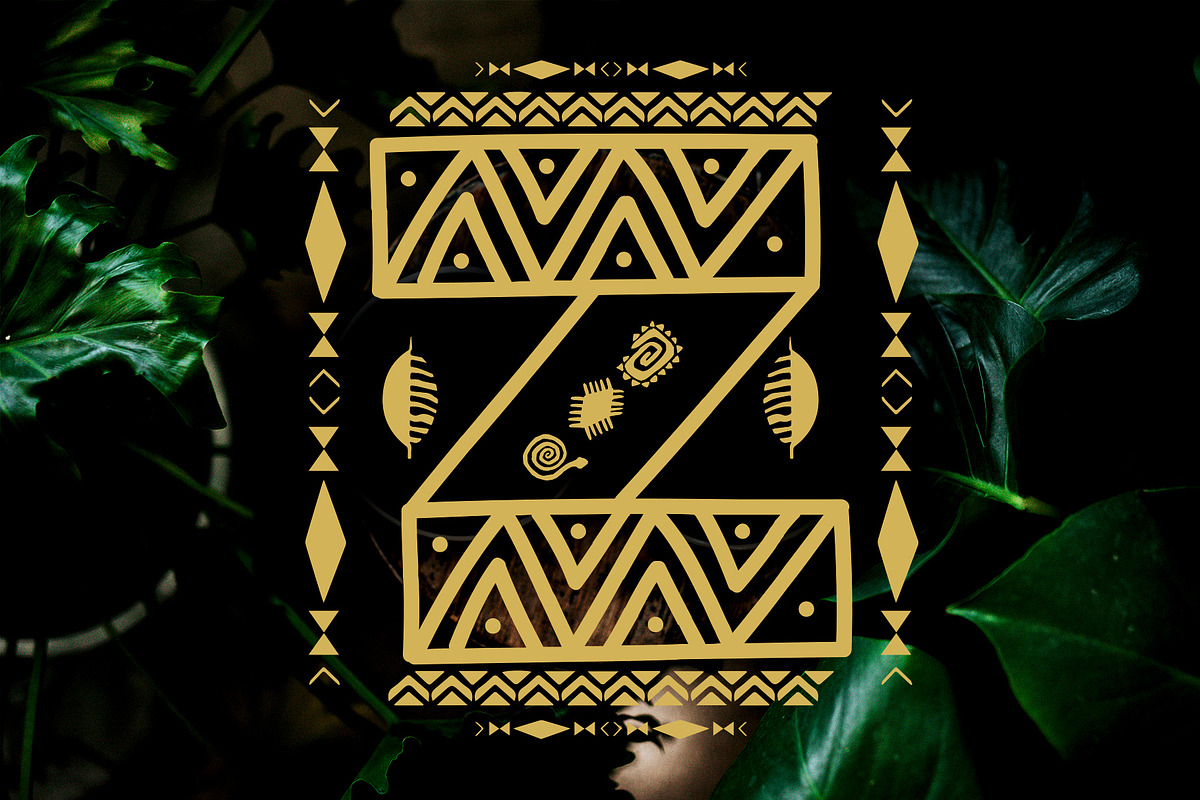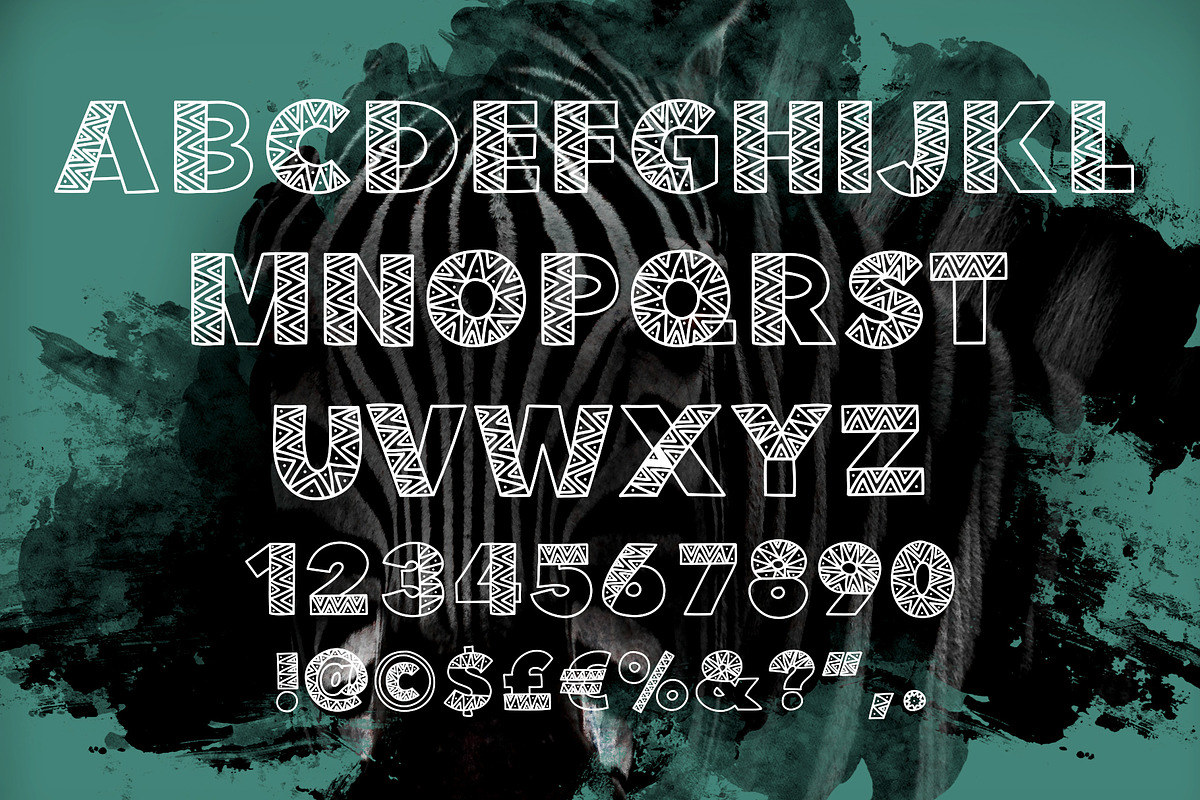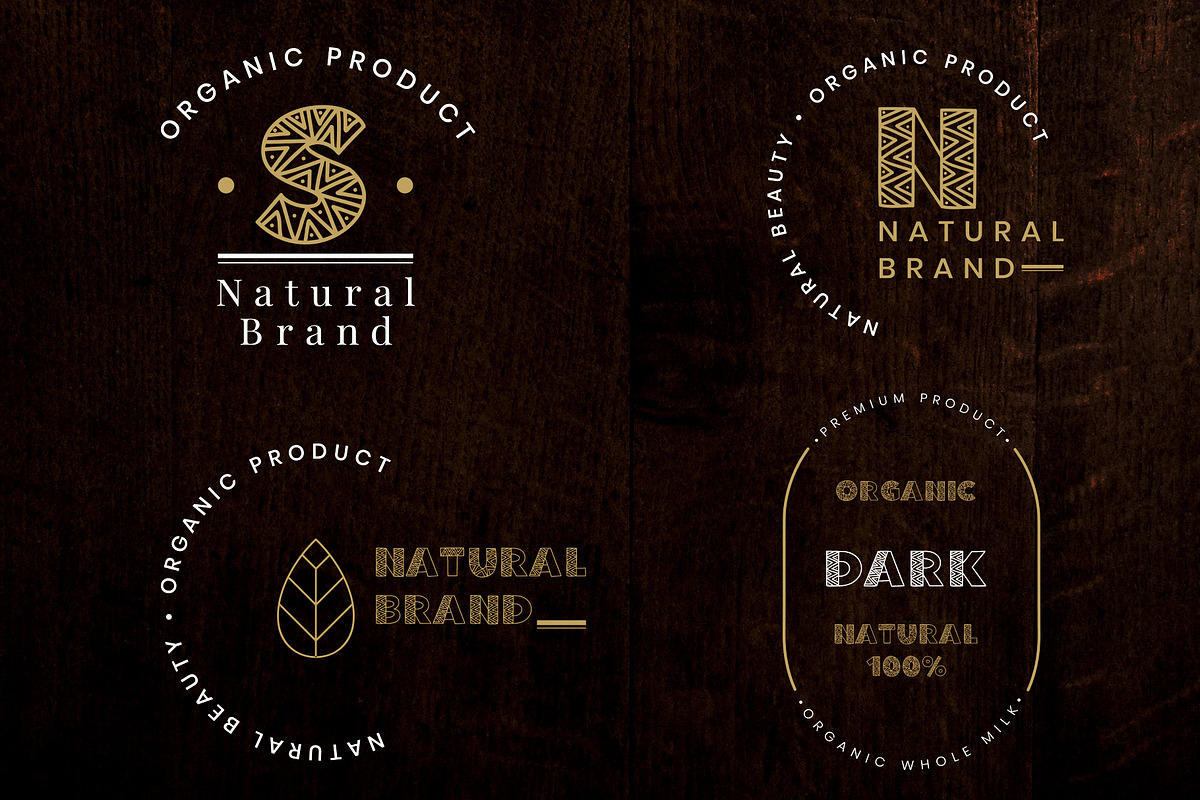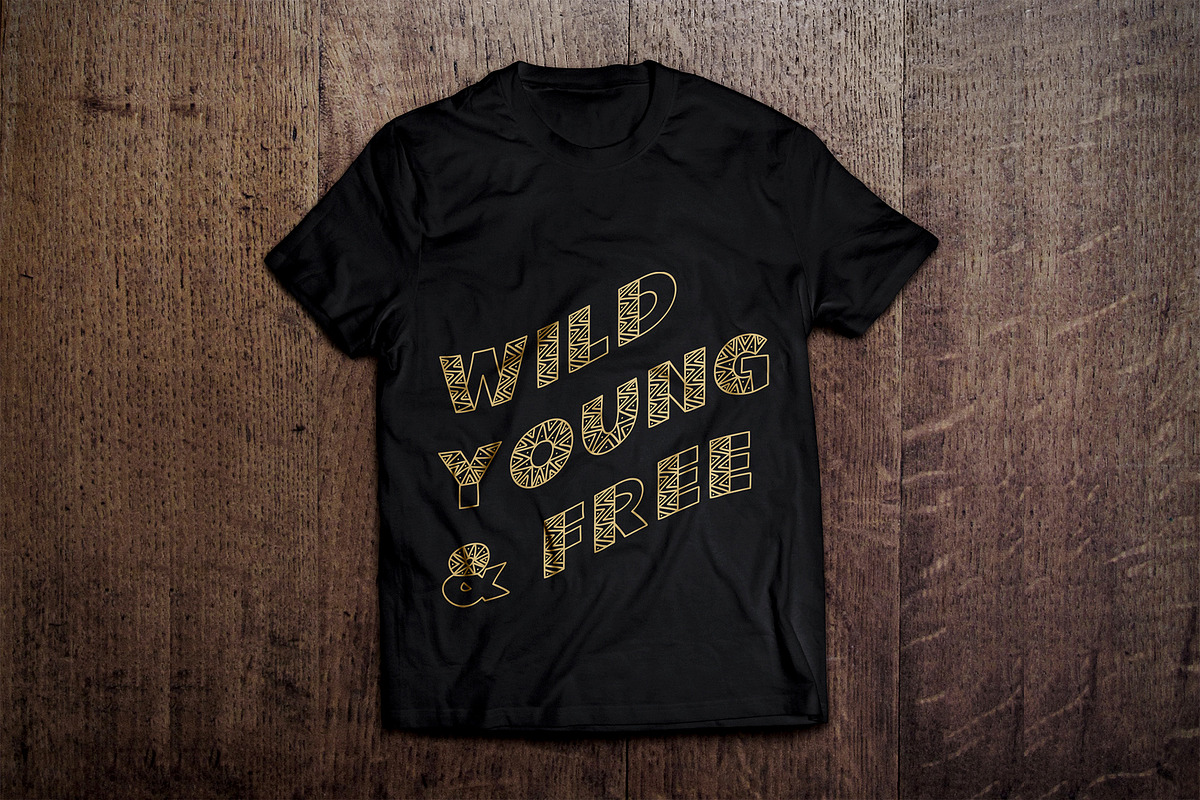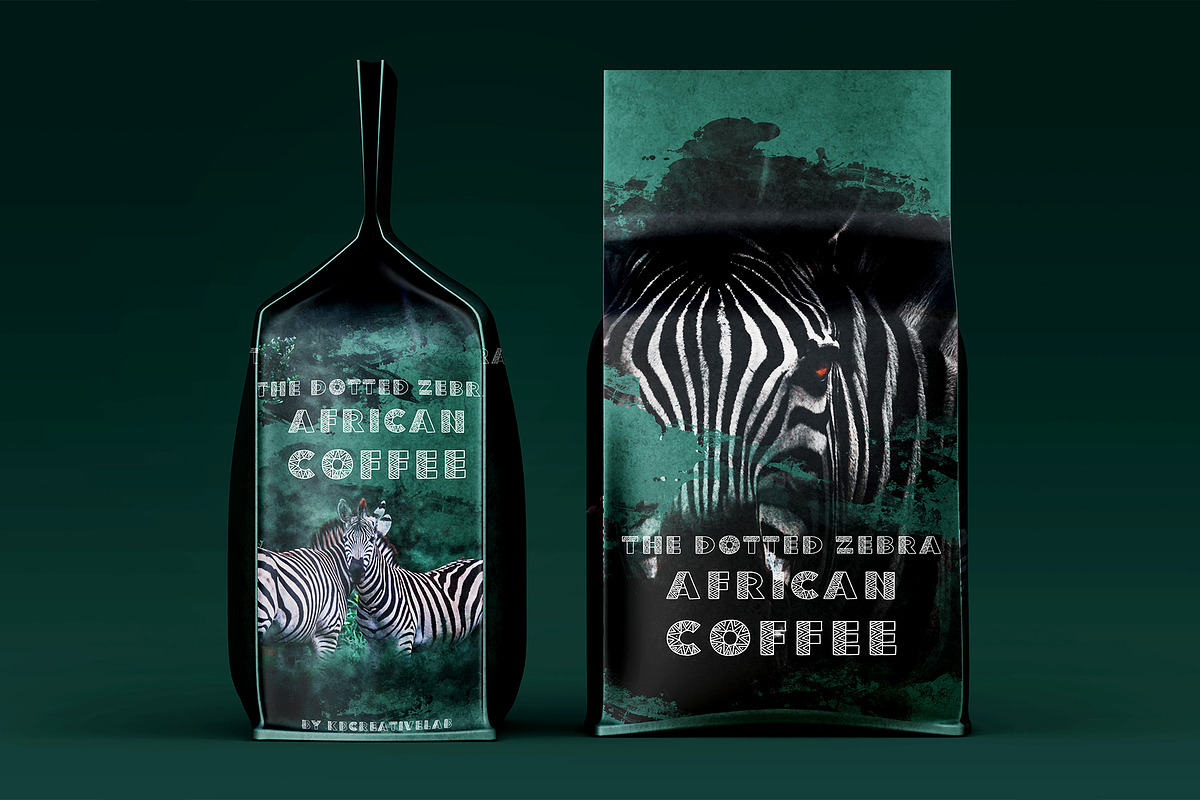
The Dotted Zebra Tribal Display Font
I would like to introduce my very first font - The Dotted Zebra Tribal font. The Dotted Zebra is a display font decorated with geometric patterns. The typeface includes 26 letters of the latin alphabet, numbers, punctuation, and currency symbols. This tribal font is easy to use and suitable for most programs.
THE DOTTED ZEBRA font is great for lettering posters, greeting cards, sale brochures, photo overlays, music album, book covers, food & beauty packaging. Also great on apparel printing. Use individual letters to create logos and monograms. Suitable for Photoshop, Indesign, Illustrator, Words, Powerpoint, Keynotes etc...
- The typeface includes 26 letters of the latin alphabet, numbers, punctuation, and currency symbols.